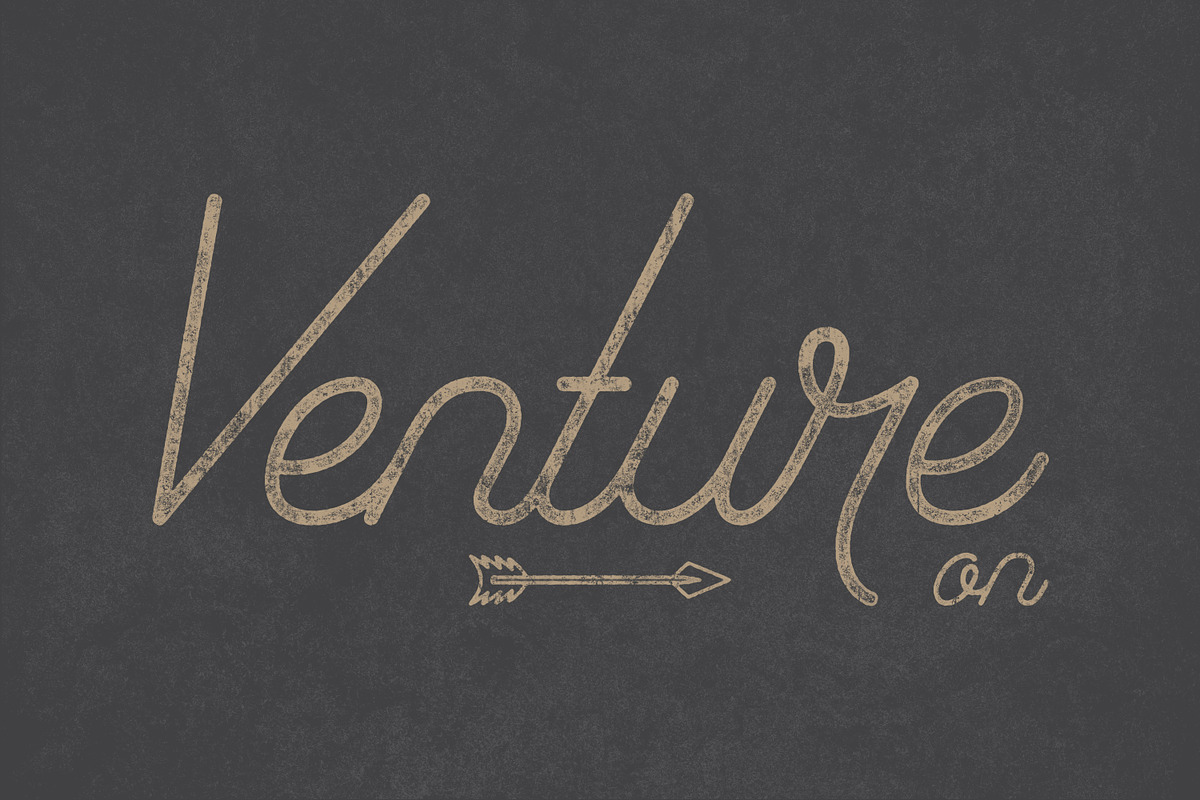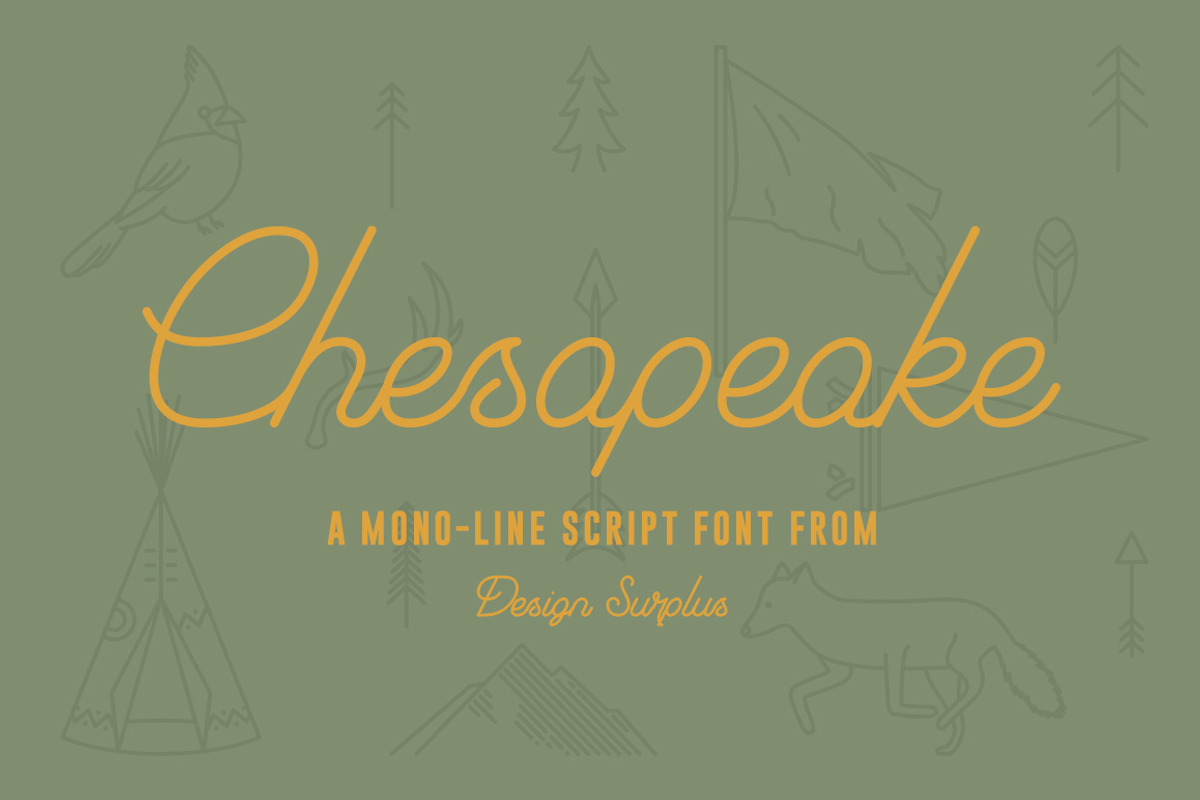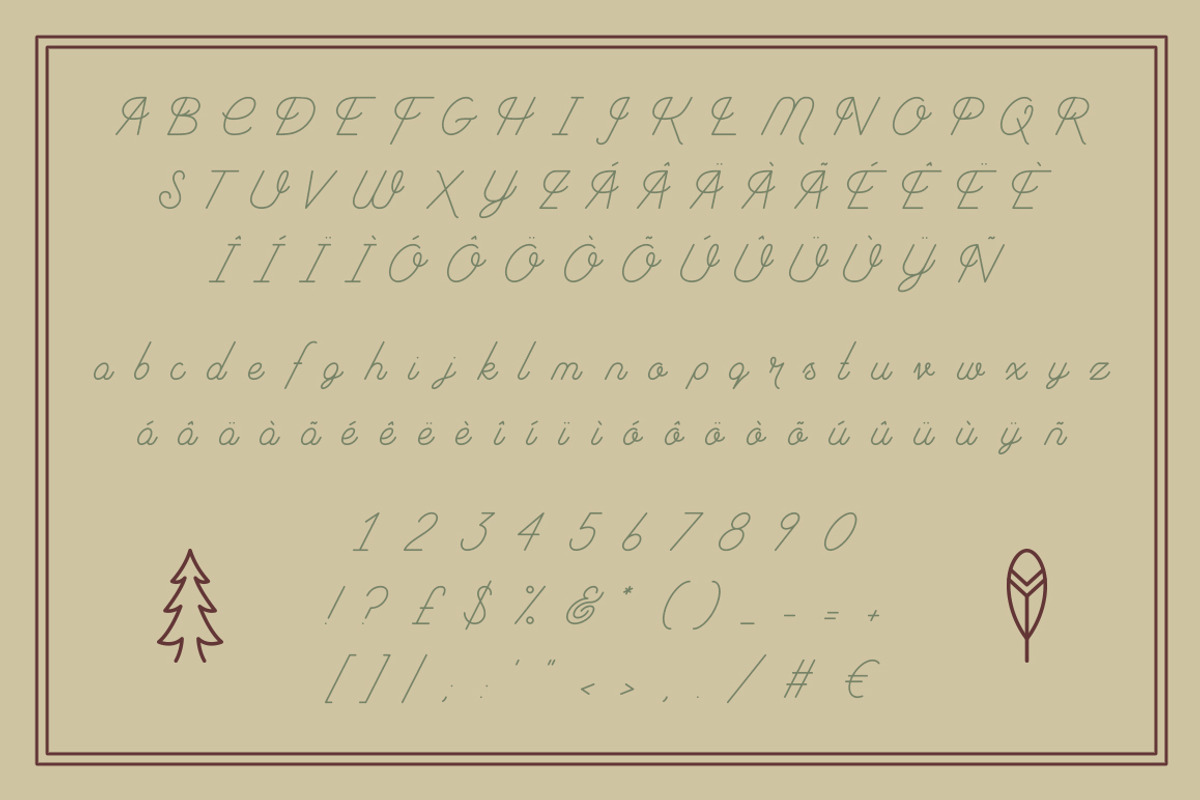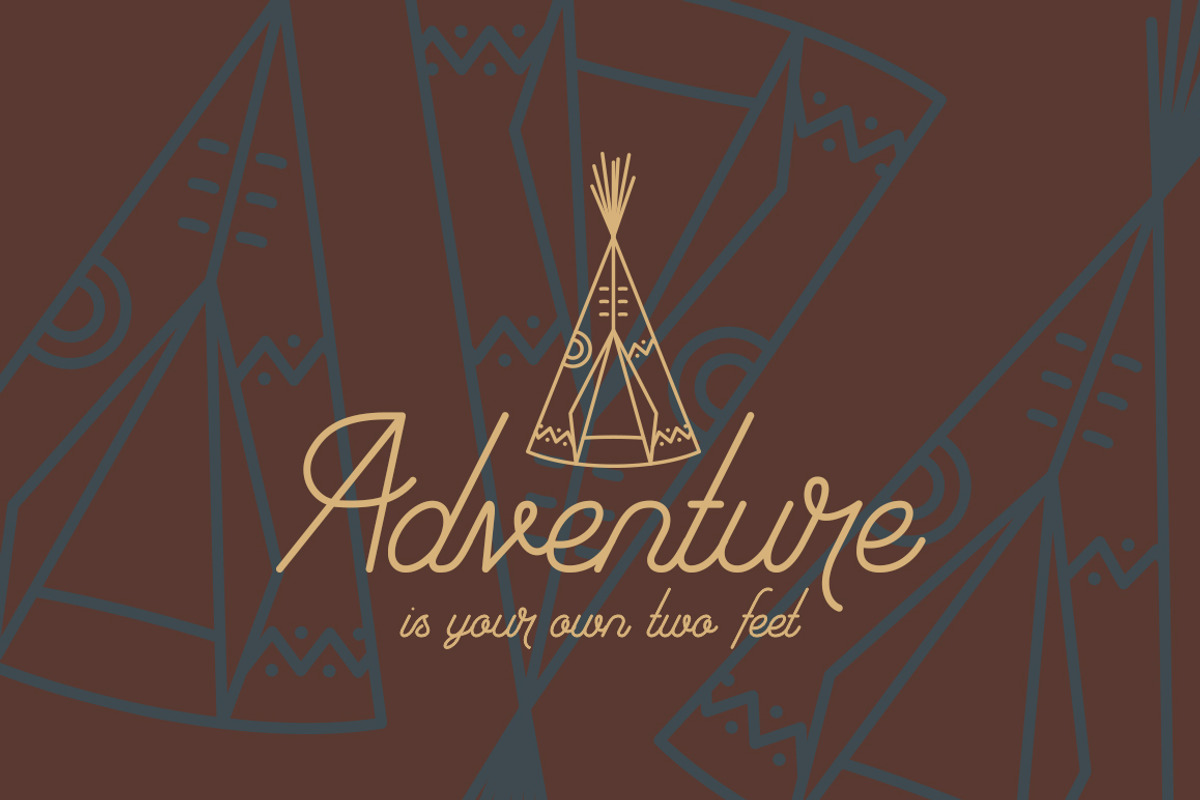
Chesapeake Script Font
Chesapeake Script Font by Design Surplus is a font selected for branding, posters, packaging, typography.
- Chesapeake consists of 139 glyphs including 48 accented glyphs for use in a number of different languages.
Chesapeake Script Font by Design Surplus fits naturally into Branding, posters, packaging, typography.